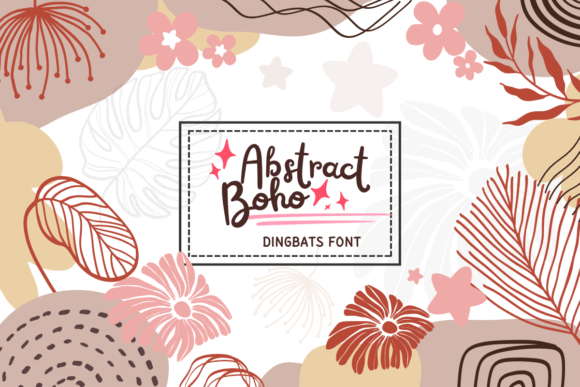
The Ultimate Guide to Abstract Boho Font: Elevate Your Creative Projects
I’ll never forget the time I was working on a wedding invitation project, and my client asked for a font that was “boho-chic” and “whimsical.” I scoured the internet, but nothing seemed quite right. That was until I stumbled upon the Abstract Boho font. It was love at first sight! 💕 This dingbat font with a boho sketch-style theme has been a game-changer for my creative projects, and I’m excited to share its magic with you.
An Honest Review of Abstract Boho Font
• ✨ Unique and quirky design that’s perfect for adding a touch of personality to your projects
• ✅ Extensive library of glyphs and symbols to choose from
• 🎨 Versatile and adaptable to various design styles and themes
• 💻 Easy to use and compatible with popular design software
While Abstract Boho is an amazing font, there are a few things to keep in mind: 🤔
• ⚠️ Some glyphs may require manual kerning for optimal spacing
• ⚠️ Limited character set compared to traditional fonts
The Backstory of Abstract Boho Font
Abstract Boho was designed by a talented artist who wanted to capture the essence of bohemian style in a font. Inspired by vintage sketchbooks and eclectic decor, this font is perfect for anyone who loves the unconventional and the unique. 🌟
Q: What is a dingbat font?
A: A dingbat font is a type of font that features symbols, glyphs, and icons rather than traditional letters and numbers.
Q: Is Abstract Boho a script font?
A: No, Abstract Boho is a dingbat font, not a script font. While it has a bohemian, artistic feel, it’s primarily used for its glyphs and symbols.